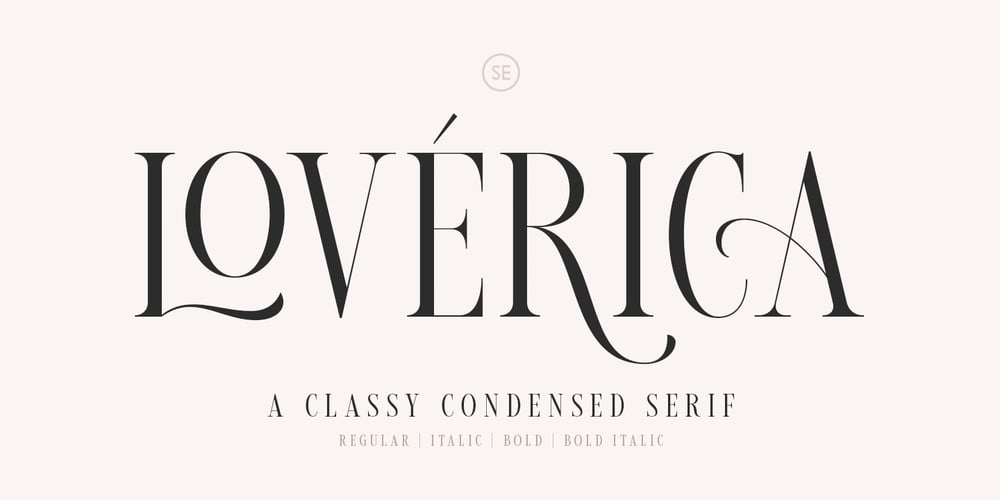
Loverica Font Family was designed by Sarid Ezra and published by Sarid Ezra. Loverica contains 4 styles and family package options. Loverica is a classic yet modern serif with up to 7 alternates for each characters that will make your presentation or logo even more stunning and stand out. With four weights that you can use for several purposes. This fonts support Multi Language and already PUA Encoded.